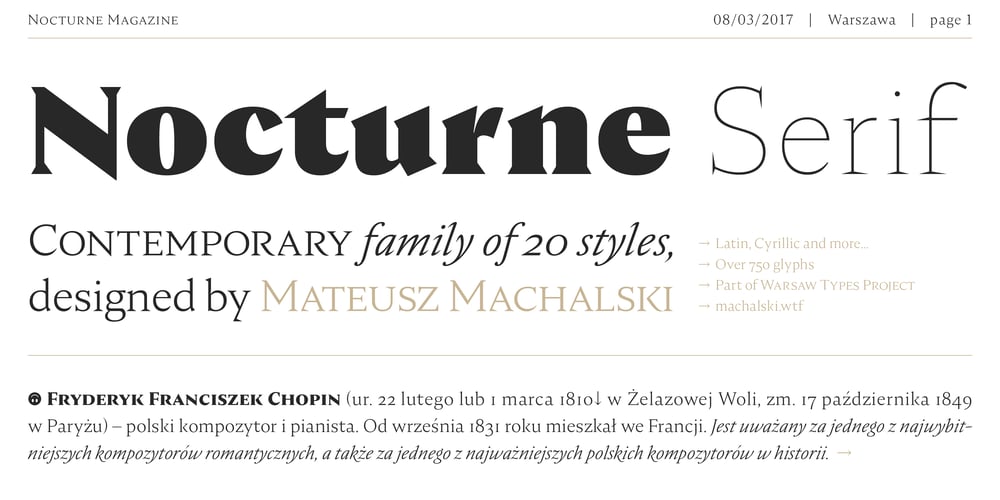
Nocturne Serif
Nocturne Serif font
Nocturne Serif Font Family was designed by Mateusz Machalski and published by Machalski. Nocturne Serif contains 20 styles and family package options. Nocturne Serif – font is inspired by the lettering on stone tablets commemorating the victims of World War II and Warsaw architecture. Nocturne is a text font that features clean geometrical shapes and high contrast, and is modernist in character. The family consists of over 750 glyphs, including: Latin, Cyrillic, small caps and many others…